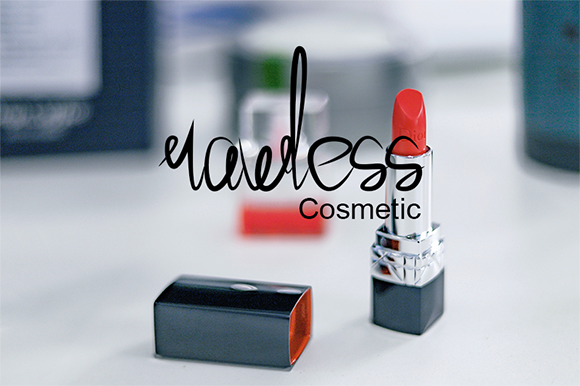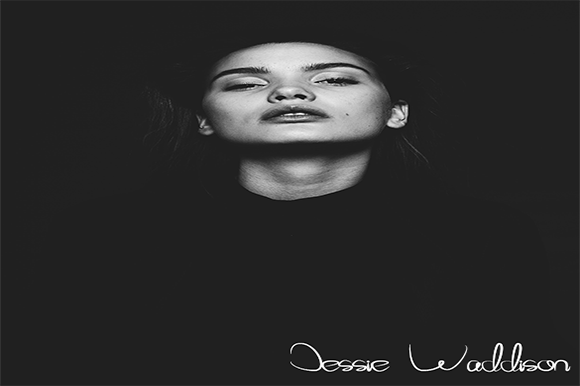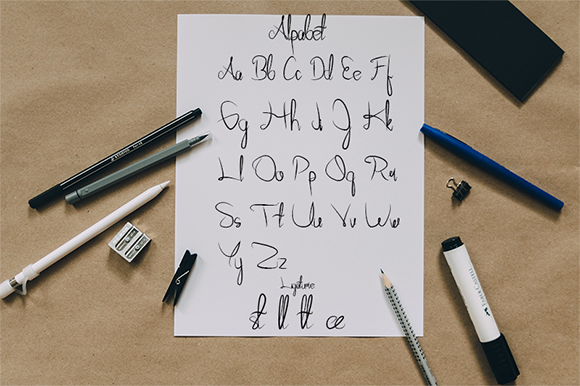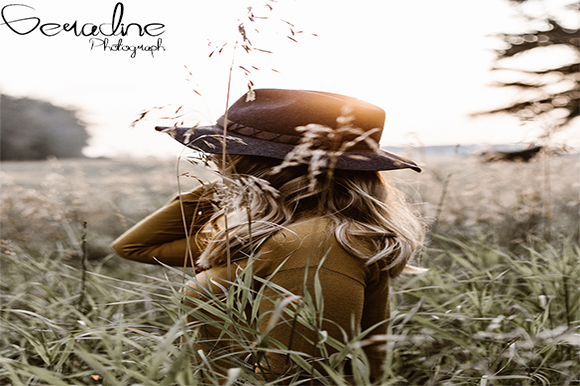
Discover the Elegance of Allabama Font: Elevate Your Designs with a Modern Script Font
In the world of typography, fonts play a crucial role in conveying the tone and aesthetic of a design. For designers and crafters looking to add a touch of elegance and modernity to their projects, the Allabama Font is an excellent choice. This beautiful script font is not only visually appealing but also offers good readability, making it perfect for a wide range of applications.
What is Allabama Font?
The Allabama Font is a stunning script font that boasts a unique blend of classic elegance and modern flair. Its fluid strokes and harmonious letterforms make it an ideal choice for designers seeking to create sophisticated and eye-catching designs. Whether you’re working on a branding project, crafting invitations, or designing packaging, Allabama Font is sure to impress.
Key Features of Allabama Font
- Elegant and Modern Design: Allabama Font features a beautiful script design that exudes elegance and sophistication. Its modern feel makes it perfect for contemporary designs.
- Good Readability: One of the standout features of Allabama Font is its excellent readability. This makes it suitable for both headings and body text, ensuring that your message is conveyed clearly and effectively.
- Versatility: Allabama Font can be used across various design projects, including but not limited to, logos, branding materials, invitations, packaging, and digital media.
- User-Friendly: The font is easy to use and works seamlessly with most design software, including Adobe Creative Suite.
Benefits of Using Allabama Font in Your Designs
Choosing the right font for your design project can significantly impact its overall success. Here are some benefits of incorporating Allabama Font into your work:
- Enhances Brand Identity: With its unique and elegant design, Allabama Font can help you create a distinctive brand identity that sets you apart from the competition.
- Improves Readability: The font’s clarity ensures that your message is communicated effectively, making it ideal for designs that require a balance of style and substance.
- Time-Efficient: Allabama Font’s versatility means you can use it across multiple projects, saving you time and effort in searching for different fonts.
- Cost-Effective: Investing in a multi-purpose font like Allabama can be cost-effective in the long run, as it eliminates the need to purchase multiple fonts for different projects.
Tips for Using Allabama Font Effectively
To maximize the impact of Allabama Font in your designs, consider the following tips:
- Pair with Complementary Fonts: For optimal results, pair Allabama Font with fonts that complement its script style. Sans-serif fonts often create a harmonious contrast.
- Adjust Font Sizes: Play with different font sizes to create visual hierarchy and emphasize key information.
- Experiment with Colors: Don’t be afraid to experiment with different colors. Allabama Font works well with both bold and subtle color schemes.
- Maintain Consistency: For brand consistency, use Allabama Font across all your design materials.
The Allabama Font is a versatile and elegant script font that can elevate your designs to new heights. Its perfect blend of modernity and readability makes it an invaluable asset for designers and crafters. Whether you’re creating professional branding materials or beautiful crafts, Allabama Font is sure to bring a touch of sophistication and elegance to your work. So, why wait? Explore the creative possibilities with Allabama Font today and discover a world of typographic excellence.